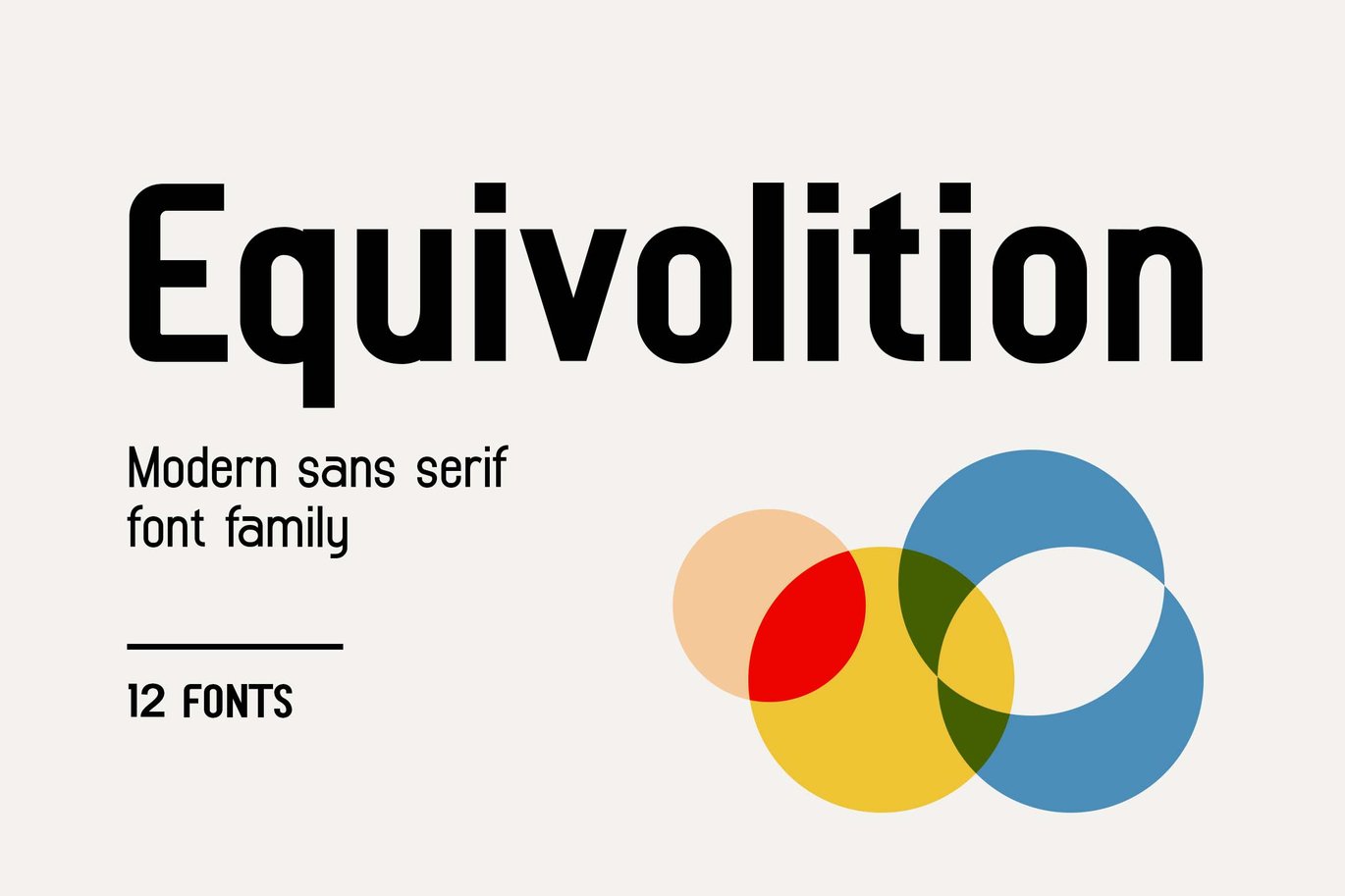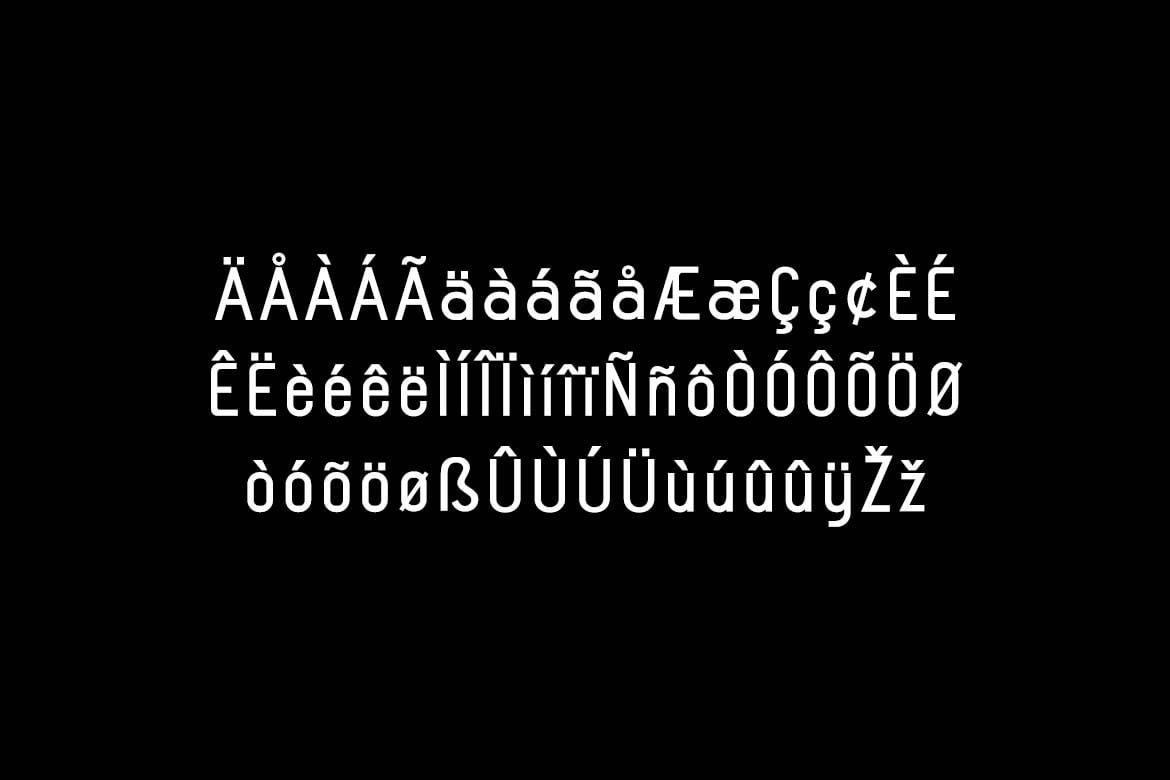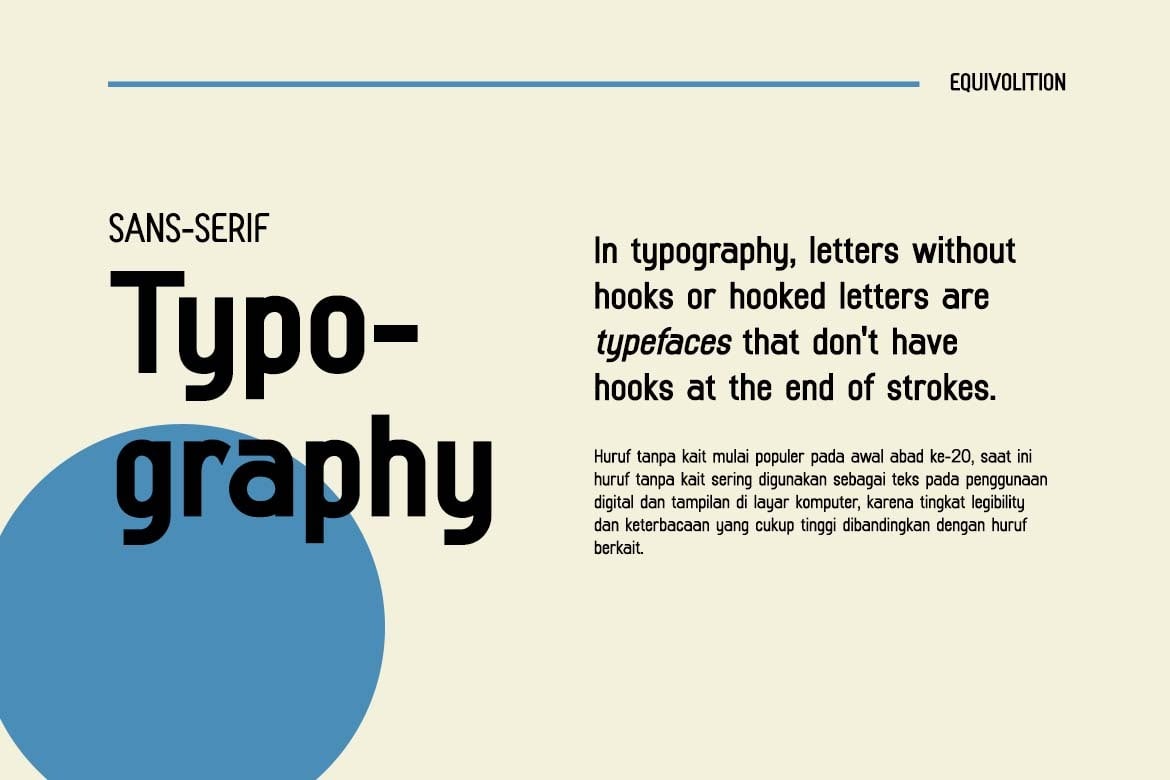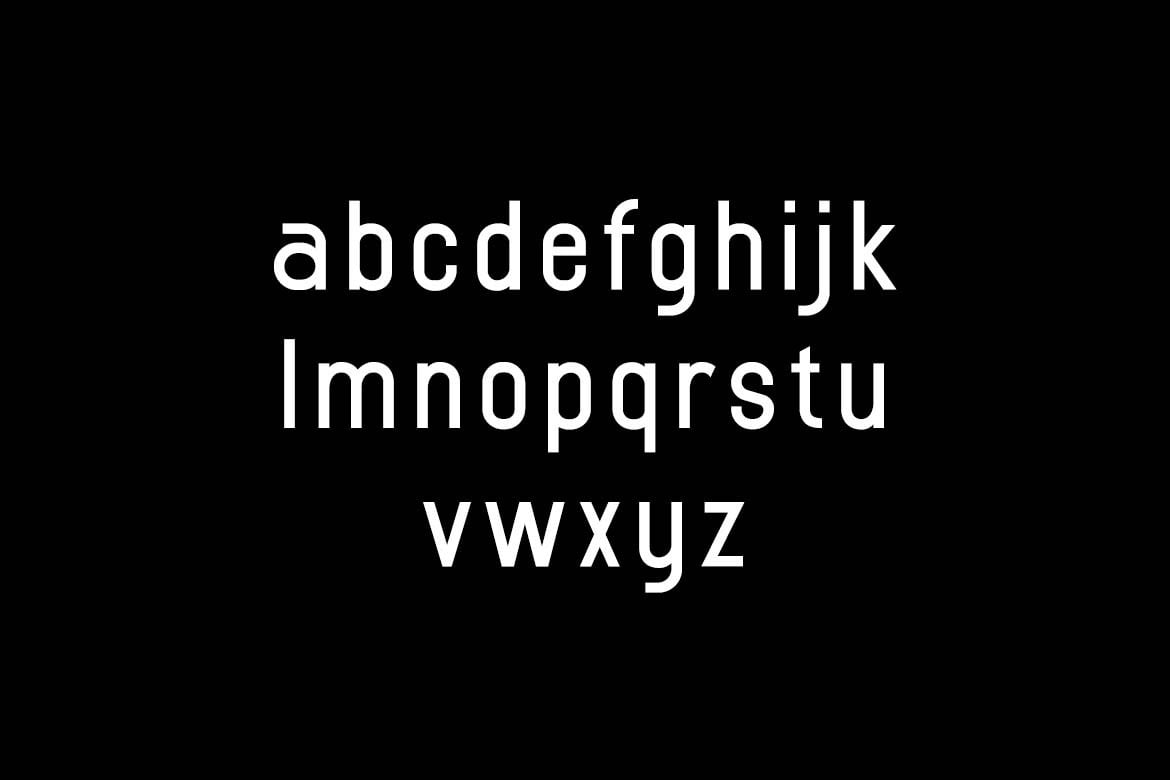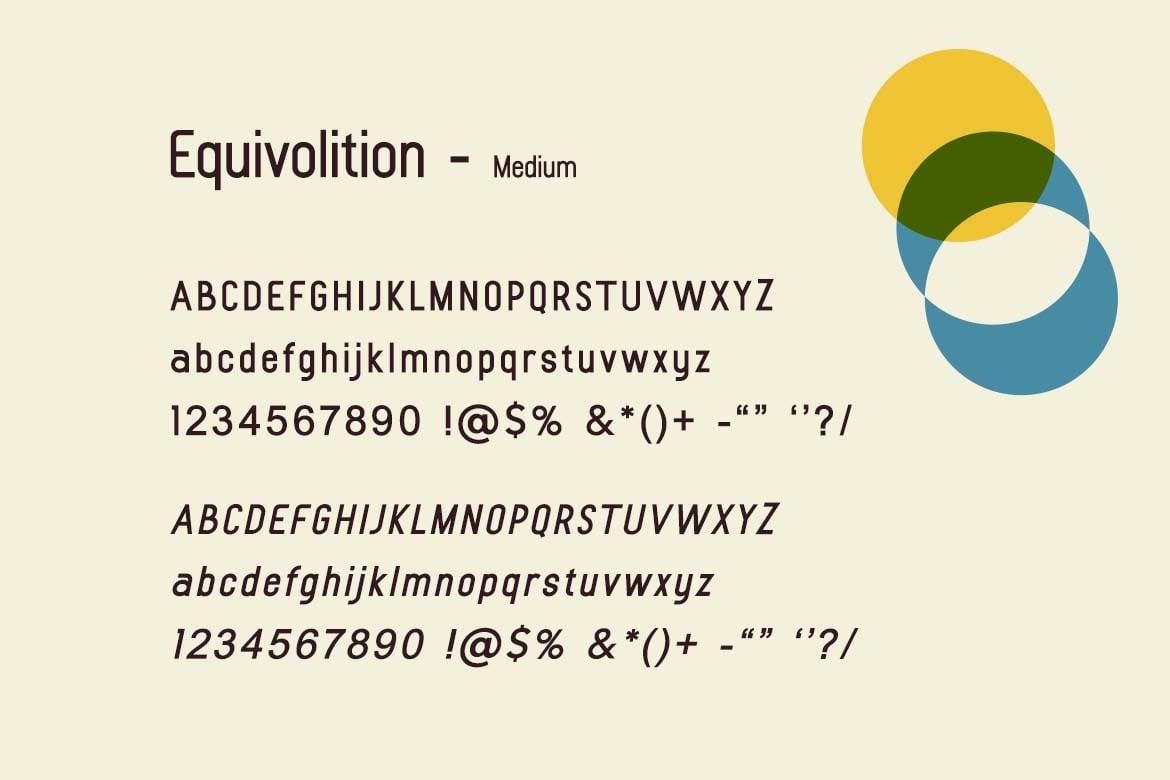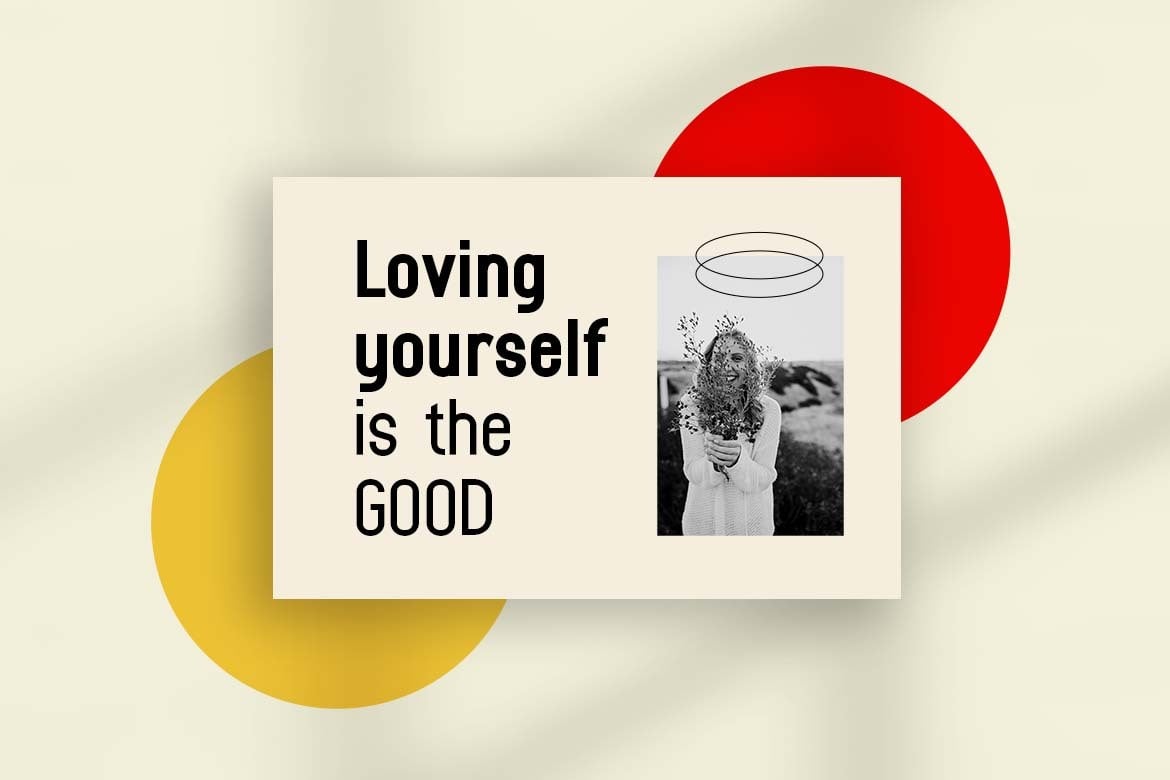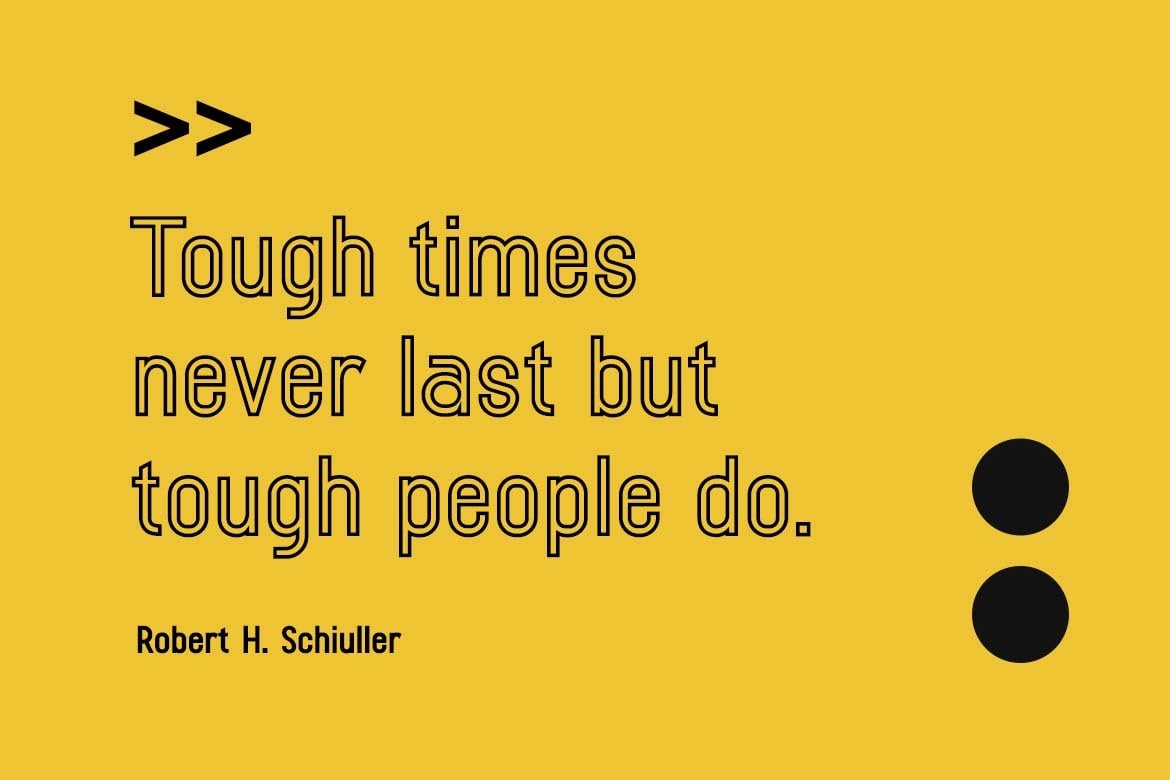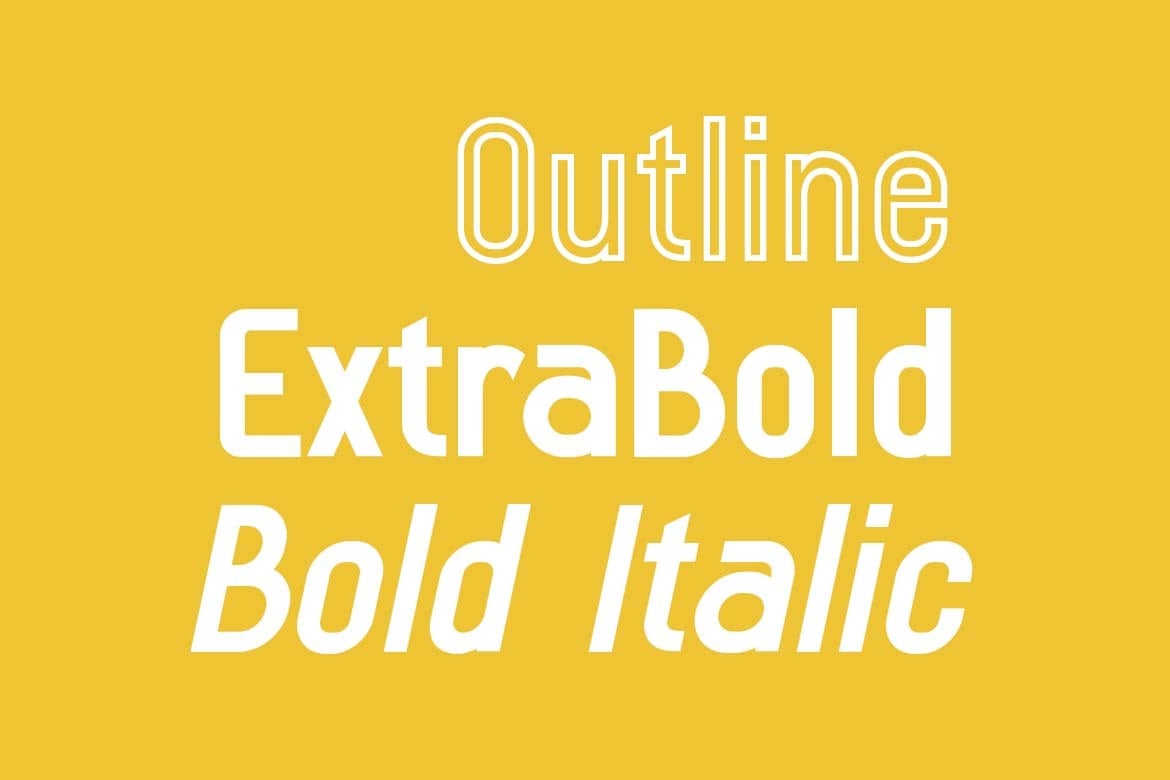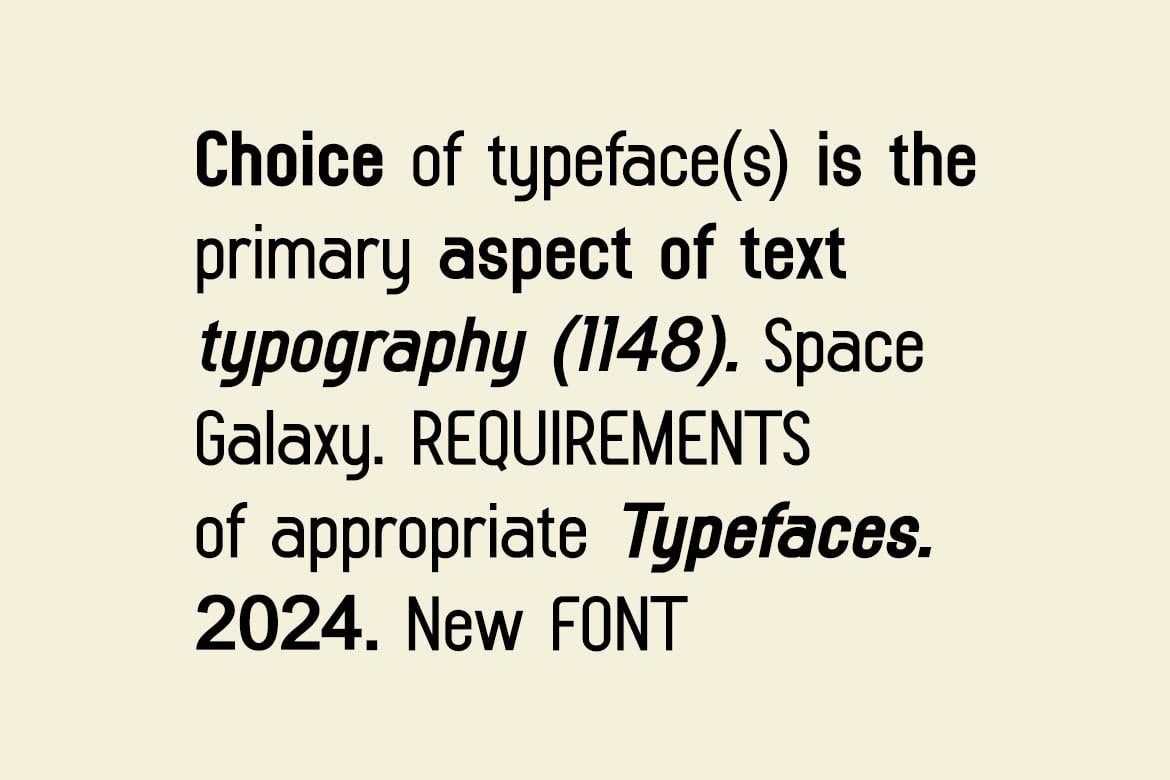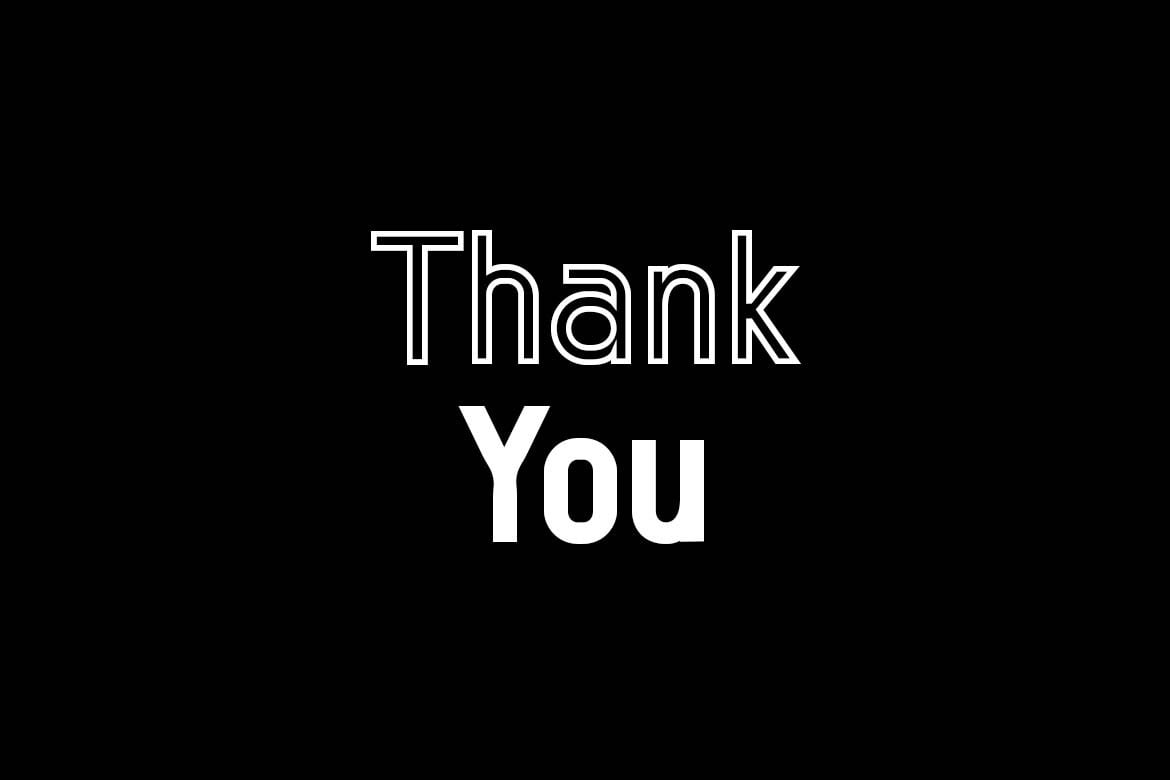
Equivolition Modern Sans Serif Font Family
Introducing our new product the name is Equivolition Retro Sans Serif Font Family. Equivolition Retro Sans Serif Font Family that feels beautiful classy, elegant, and modern. This font is perfectly suited for a wide variety of projects, such as signature, stationery, logo, wedding, typography quotes, magazine or book covers, website headers, branding, packaging design, and more. Also, fashion-related branding or editorial design displays both masculine and feminine qualities.